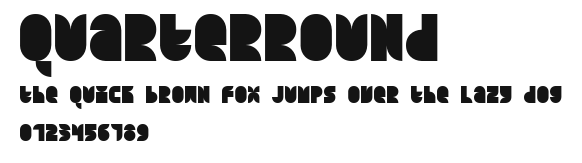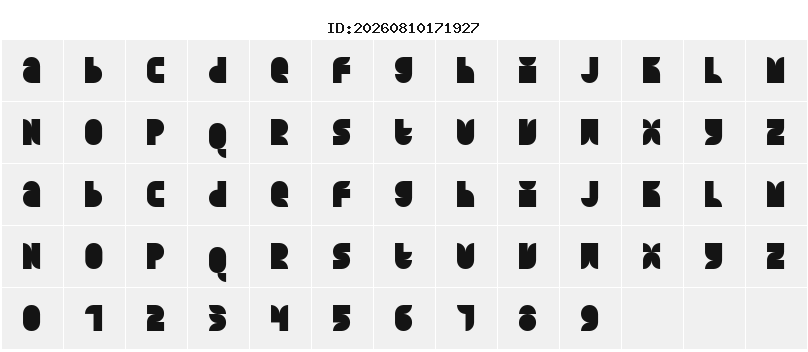
• Font Name: Quarterround
• Font Style: Solid
• Font ID: Macromedia Fontographer 4.1.3 Quarterround Solid
• Full Font Name: Quarterround Solid
• Version: Macromedia Fontographer 4.1.3 7/1/00
• PostScript Name: QuarterroundSolid
• Character Count: 152
About Quarterround.ttf
Quarterround.ttf is a modern, elegant sans-serif font designed for ultimate readability and visual harmony. Perfect for branding, headlines, web design, and print materials.